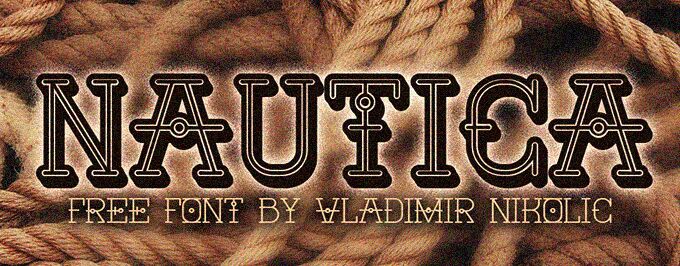
Nautica 3D Regular
Nautica 3D is a captivating display font that exudes a vintage, retro charm. Designed by Vladimir Nikolic, this typeface boasts a distinctly three-dimensional appearance, with its robust, linear structures and intricate geometric patterns creating a bold and striking visual impact. The font's unique character lends itself seamlessly to a wide range of applications, from eye-catching headlines and poster designs to branding and advertising campaigns.
Its retro-inspired aesthetic evokes a sense of nostalgia, making it an ideal choice for projects that seek to convey a vintage or heritage-inspired aesthetic.